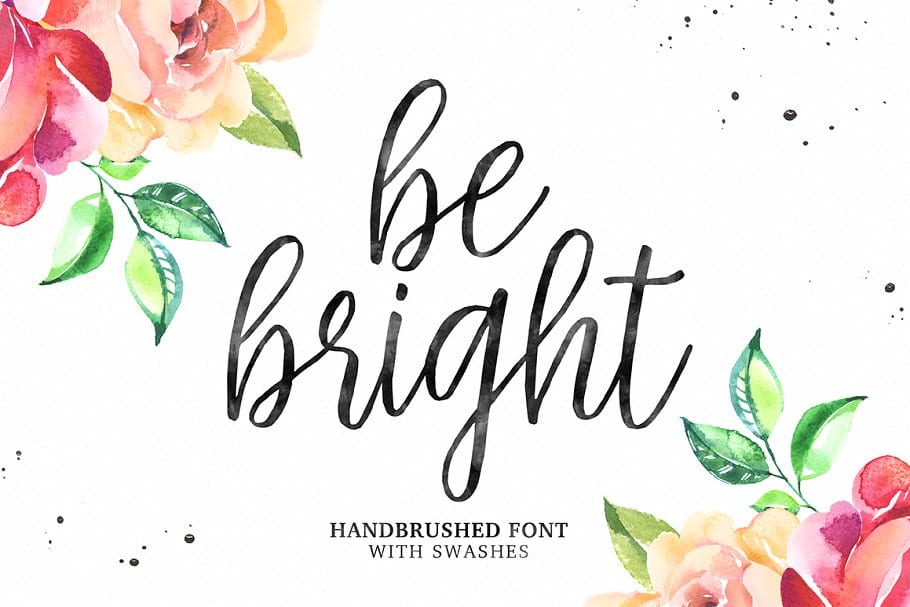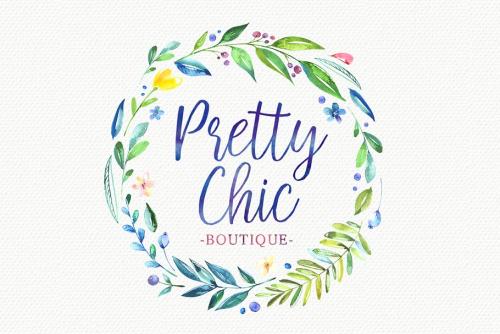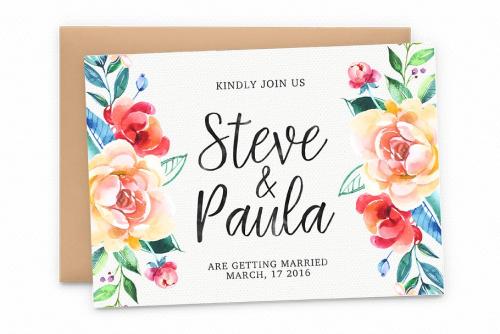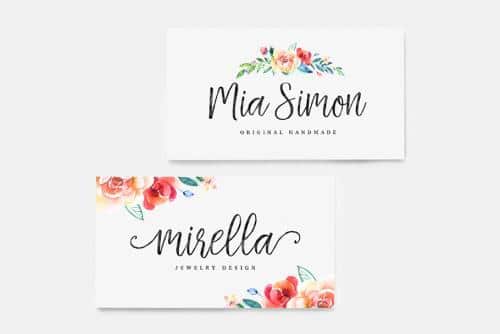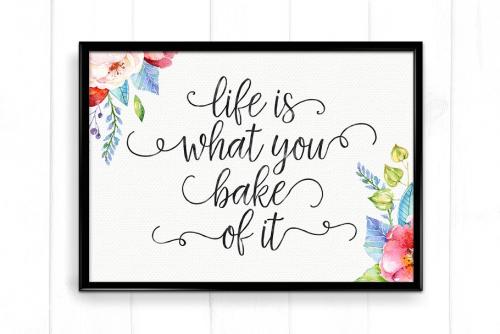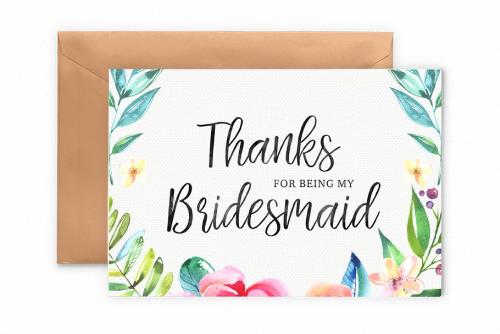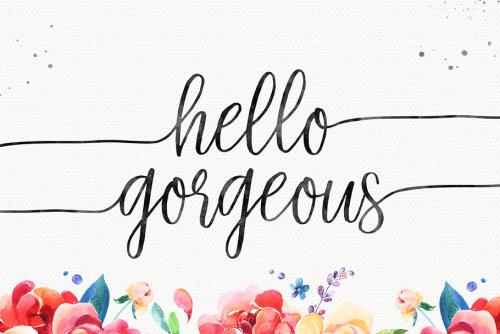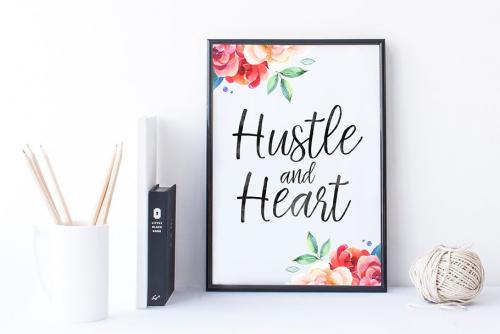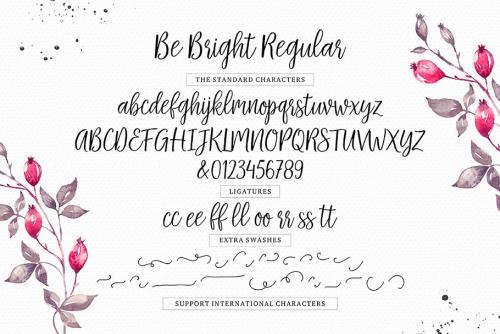
Be Bright is a sweet handbrushed calligraphy font, elegant and varying baseline with separate swashes that can be applied to the beginning and ends of all lowercase.
Were painted on paper, scanned, vectorized and carefully made into a font. Be Bright includes several ligatures and international support for most western languages.
- Designer: Seniors